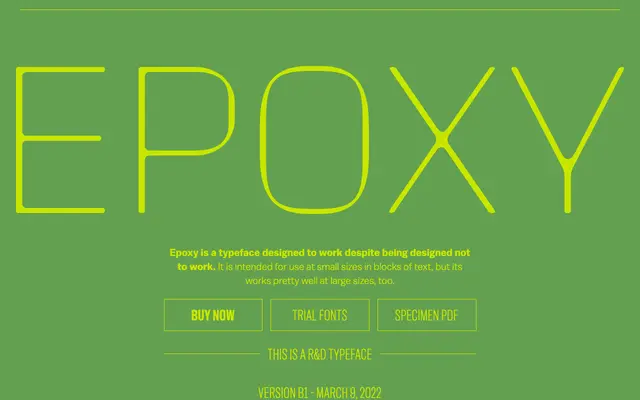
Epoxy
Balto / Type Supply · 2022
An R&D sans-serif from Type Supply built around the challenge of designing a typeface that works against its own construction, optimised for small text sizes.
Released in beta in March 2022 as part of Type Supply's R&D programme, Epoxy is a six-weight sans-serif conceived around the idea of a typeface designed not to work, yet performing well at both small and large sizes. The character set is intentionally minimal, covering basic Latin, numerals and essential punctuation only. Italics are listed as a planned next step with no confirmed timeline.
Epoxy is a sans-serif designed with intentional legibility constraints for small text use, placing it in an experimental subcategory that tests the limits of readability at small optical sizes.